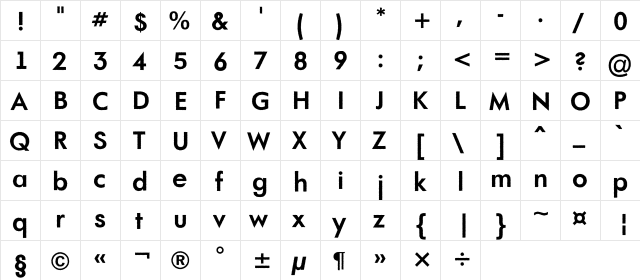
a_FuturaOrtoRg Bold
Design Context for a_FuturaOrtoRg Typeface
a_FuturaOrtoRg has a distinctly futuristic character, with geometric precision and clean angles that feel at home in technology, gaming, and sci-fi contexts. Its bold stroke weight gives it real presence on the page.
Pro Tip: Try a_FuturaOrtoRg with generous letter-spacing in UI labels and navigation — the geometric forms benefit from room to breathe.